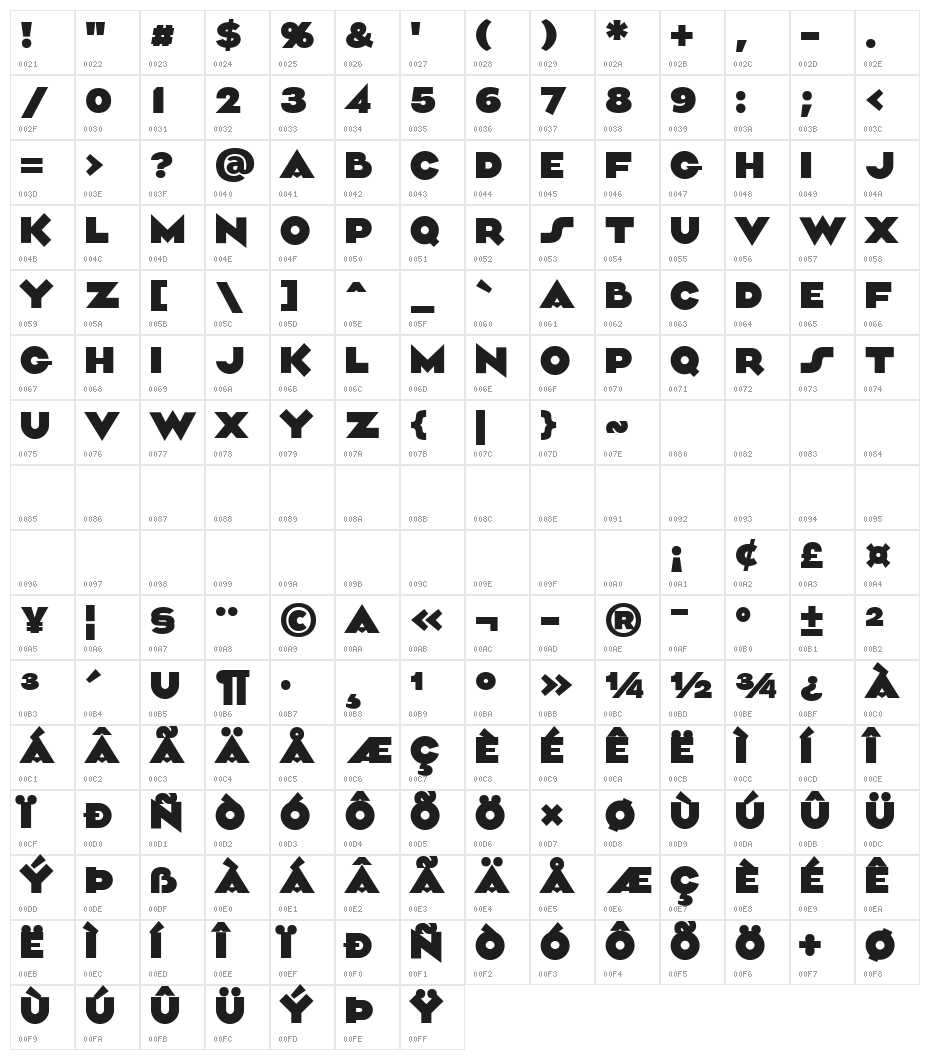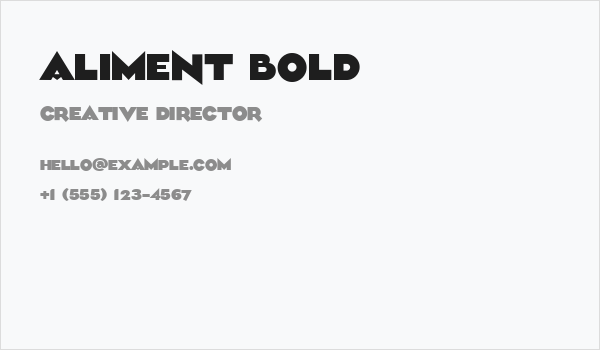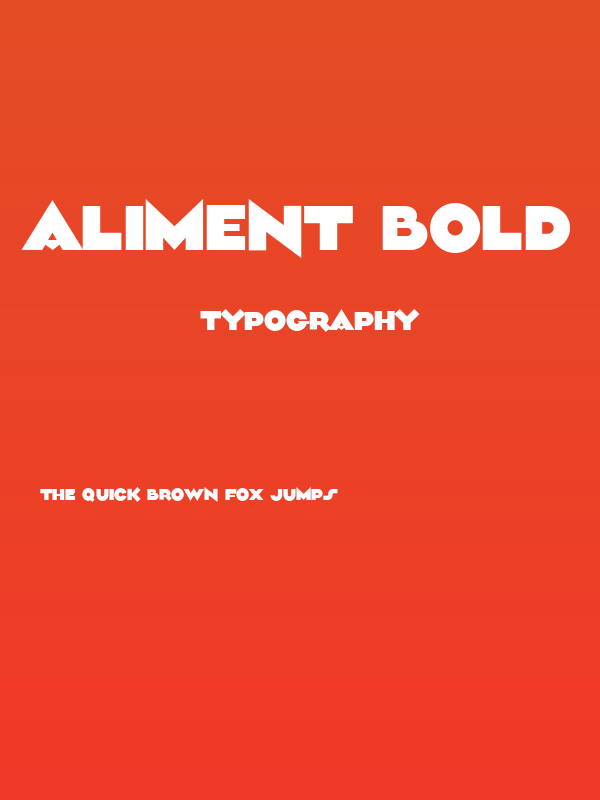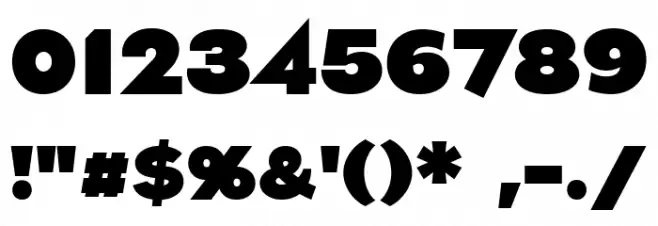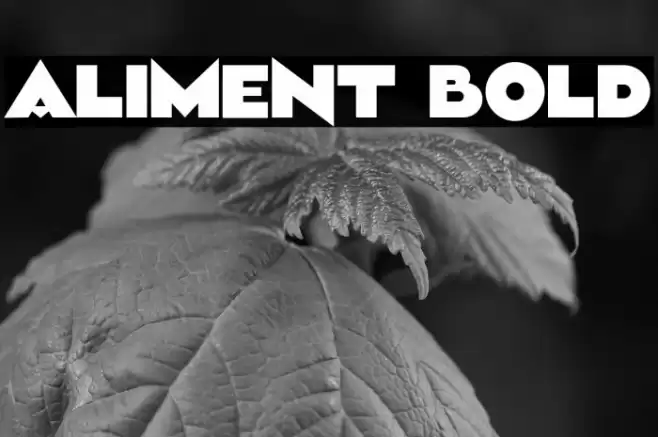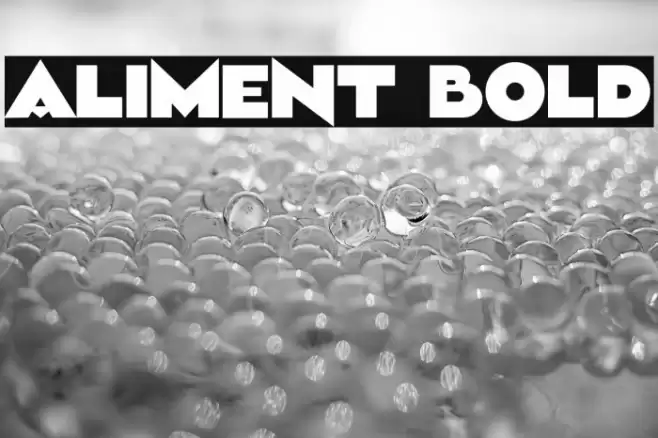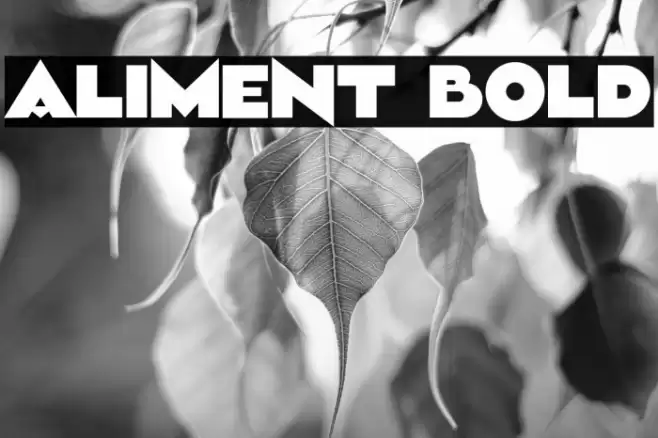
Aliment Bold Font
Aliment Bold Description
This bold and striking font features a geometric design with sharp angles and clean lines. The uppercase letters are particularly distinctive, with a unique cut-out style that adds a modern and edgy feel. The characters are wide and have a strong presence, making them ideal for attention-grabbing headlines or logos. The numbers and special characters maintain the same boldness and geometric style, ensuring consistency across all text elements. This font's design is both contemporary and versatile, suitable for a variety of creative projects.
| Proposed Projects | Ideal for branding, logos, posters, and headlines that require a bold statement. |